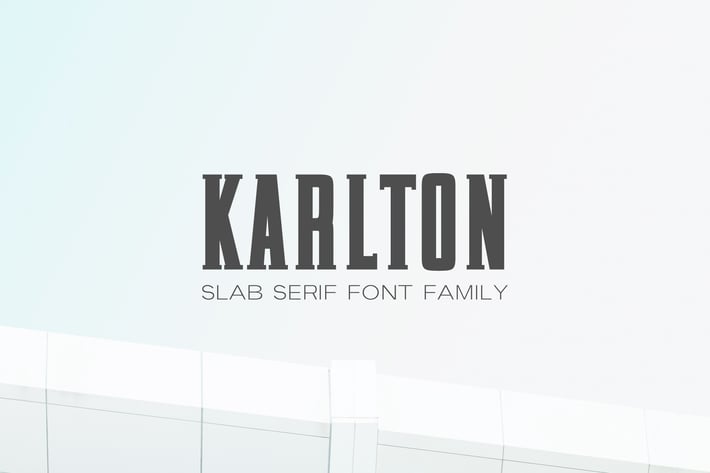
Karlton Slab Serif Font Family
Karlton Slab Serif Font Family that will gives you strong and bold typography. It comes with 3 different weights. It is perfect to use for headlines, captions, logotypes, signage, advertising, magazine, logos, invitations, texts, posters, notices, titles, name card, web layouts, headers, branding, weddings, social media, product design, stationery, and other any business related.
Font Weight: Regular, Light, and Semi Bold
Font Features:
Uppercase Letters
Lowercase Letters
Number and Punctuation